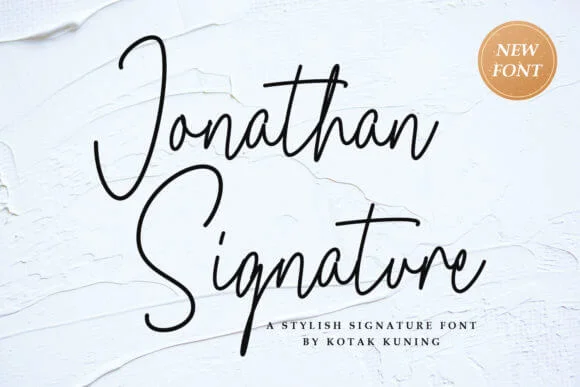
Jonathan Font
Jonathan Font is perfect for personal branding projects, signature designs, handwritten quote graphics, intimate wedding invitations, personal blog headers, artisan craft labels, boutique business logos, authentic journal covers, handmade product packaging, and genuine personal communication materials.
Jonathan Font is exciting because it captures the authentic warmth and personal character of genuine handwriting through naturally flowing letterforms that convey sincerity, trustworthiness, and human connection with intimate appeal. This personally crafted typeface combines authentic penmanship qualities with contemporary functionality, making it perfect for brands that want to communicate personal attention, genuine care, and authentic human touch.
The Jonathan Font family includes natural handwriting weights with personal character variations, featuring authentic pen stroke styling and individual letter characteristics. The font showcases genuine handwriting irregularities, personal proportions, and human design details that create a comprehensive typographic system for personal and authentic brand applications.
Jonathan Font Free Download offers designers access to premium personal typography that brings authentic human character to contemporary design projects. This carefully crafted typeface has been developed to preserve the genuine qualities of personal handwriting while ensuring consistent performance in professional applications. The font's personal character and authentic appeal make it ideal for small businesses and brands emphasizing personal relationships and individual attention.
The personal authenticity of Jonathan Font makes it an invaluable tool for service providers, artisan creators, and personal brands that need typography capable of communicating genuine human connection and personal care. The font's handwritten character helps establish immediate trust and intimacy that resonates with customers seeking personal attention, authentic relationships, and individualized service experiences.
Personal trainers, craft artists, and boutique service providers consistently choose Jonathan Font for its ability to convey personal authenticity and genuine human connection through typography. The font excels in applications where establishing personal credibility and intimate brand relationships are essential to business success, making it particularly effective for personal services, handmade products, and individual professional brands targeting relationship-focused consumers.
This font's comprehensive character set includes personally-styled letterforms, authentic numerals, handwritten punctuation marks, and personal symbols that support genuine handwriting typography composition. The consistent personal styling maintains the authentic human theme throughout all characters while ensuring professional readability across all personal and authentic design projects requiring Jonathan Font Free Download functionality.